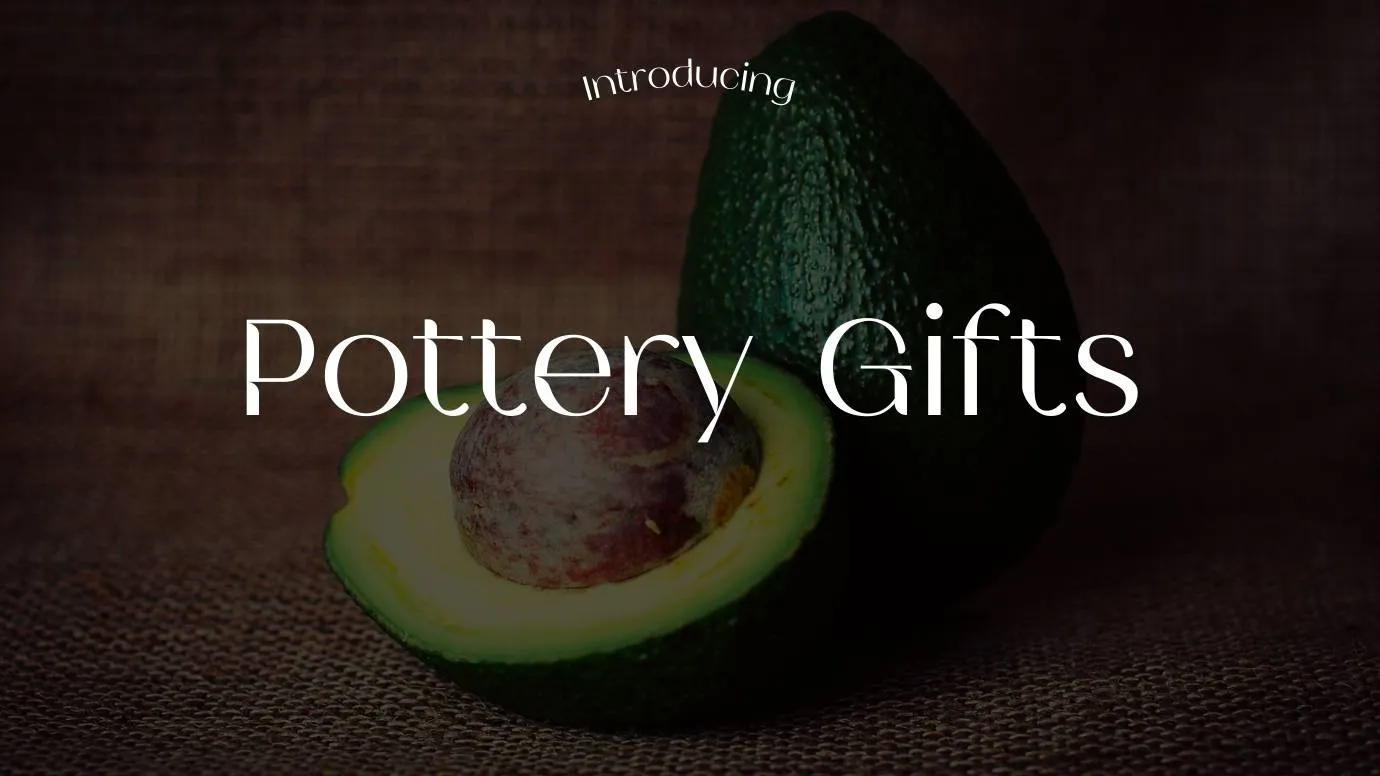
Pottery Gifts Font Family
Pottery Gifts Font Family is a modern serif look font that comes with eye-catching features. This font family was established for the first time by Typia Nesia. Pottery Gifts typeface has stylish serif characters including uppercase letters, numbers, punctuation, and some special characters.
It comes with classy look letters and eye-catching glyphs. The designer can make its combination with a similar font like zara logo font which is a free typeface.
Pottery Gifts Font